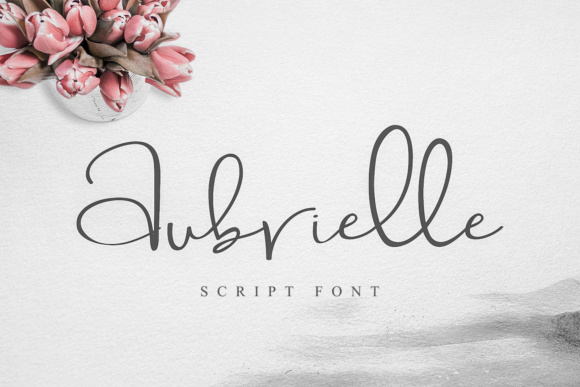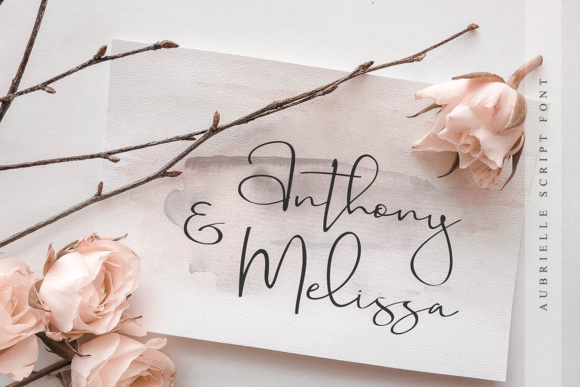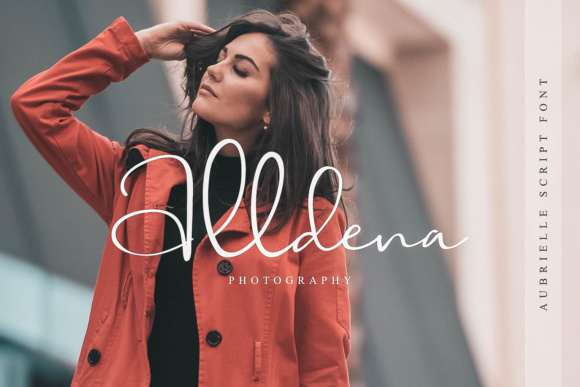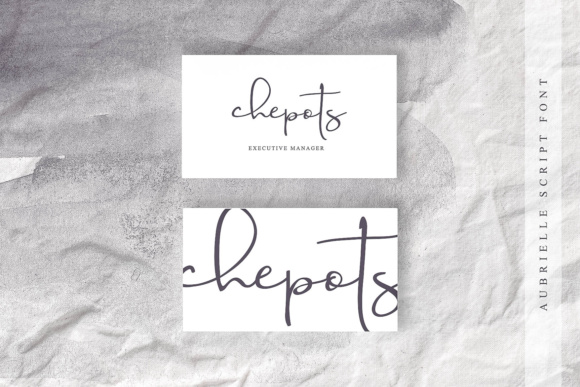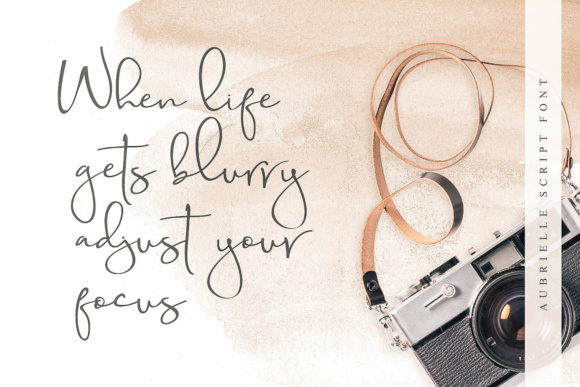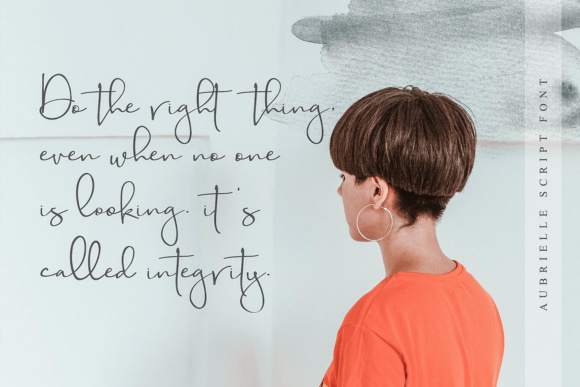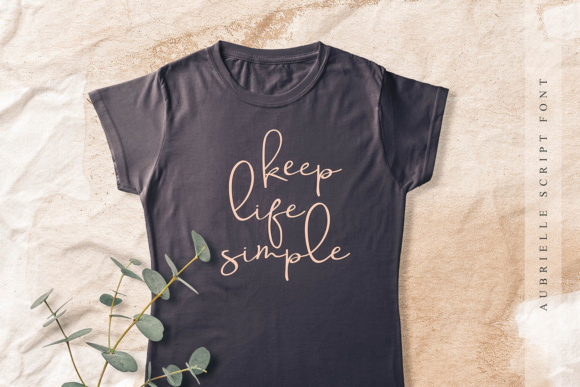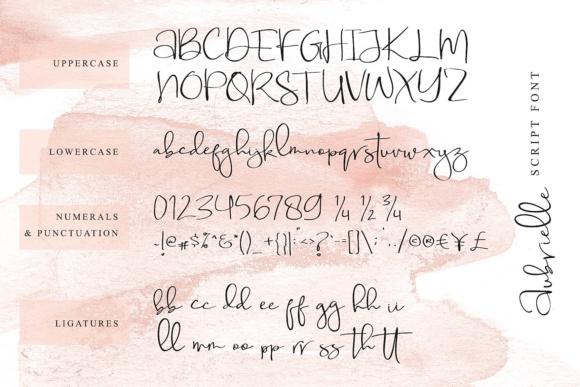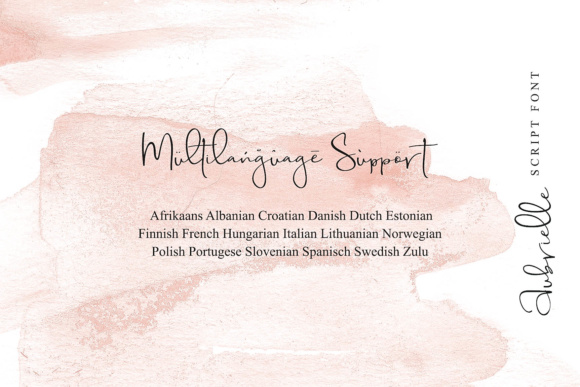
Aubrielle Font
About Aubrielle Font
Aubrielle is a stunning and relaxed handwritten script font, ideal for use in logotype and other types of projects that need a bold focal point. This calligraphy font is a great way to create easy, hand-lettered designs in an instant.